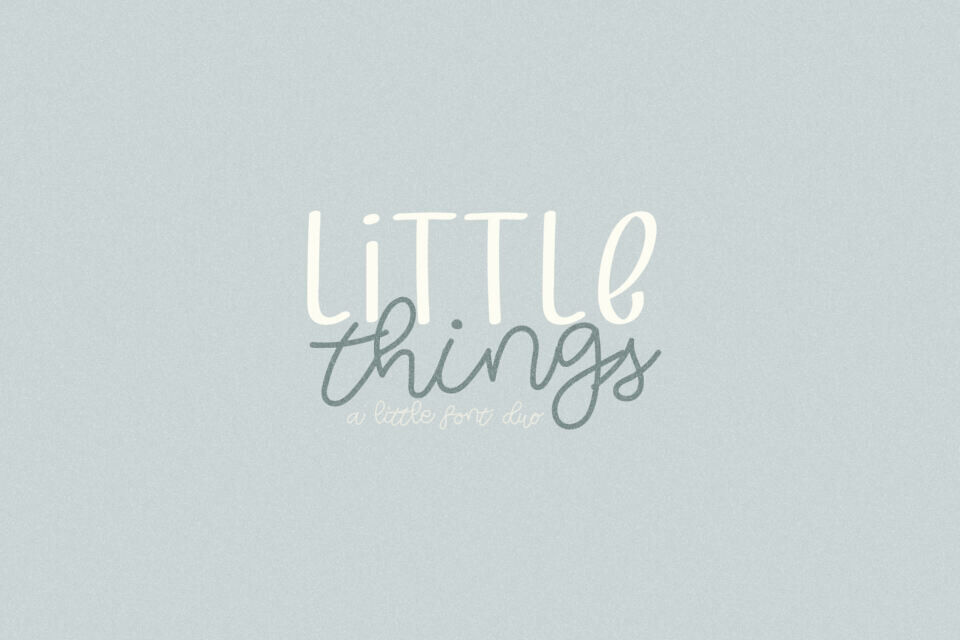
Jul 2, 2025Script & HandwrittenLittle Things Duo Font Little Things Duo is a sweet, dainty and bouncy duo font (sans serif and handwritten). Get inspired by its elegant feel and use it to turn any design project into a standout! Font DetailsDesigned by: Sweet VibesWebsiteLicense: Free for commercial use Download Little Things Duo FontFile size: 119.12 KBCreated: July 2, 2025Updated: July 2, 2025 Download Explore similar fonts Welcome Miracle Duo Font Little Marker Font Simple Things Font Sunny Brunch Font Family Stay With Me Font Manifesta Font # Casual# Creative# Cursive# Cute# Friendly# Hand-drawn# Handwriting# Informal# Invitations# Poster# Simple# Variable